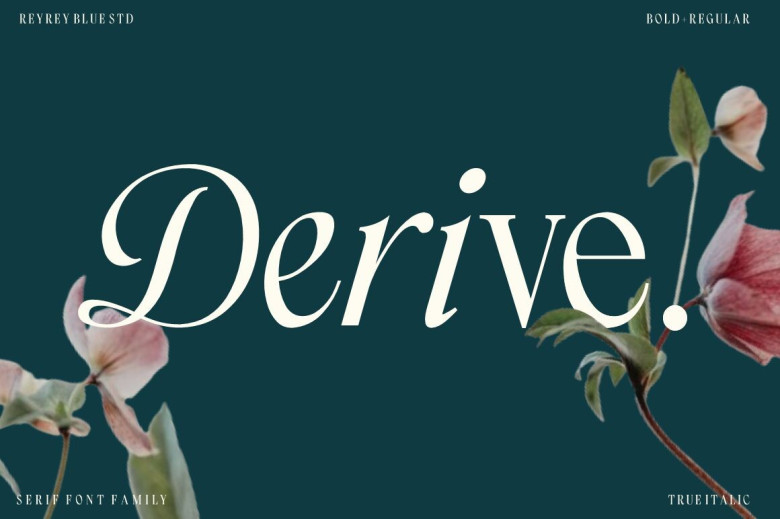
Derive Font
Derive is a stylish serif typefaces that capture users with its distinct mix of contemporary style and classic sophistication. With elegant letters evoking elegance and sophistication, this font makes an excellent choice for projects requiring both classic sophistication and contemporary aesthetics.
Derive Serif Font